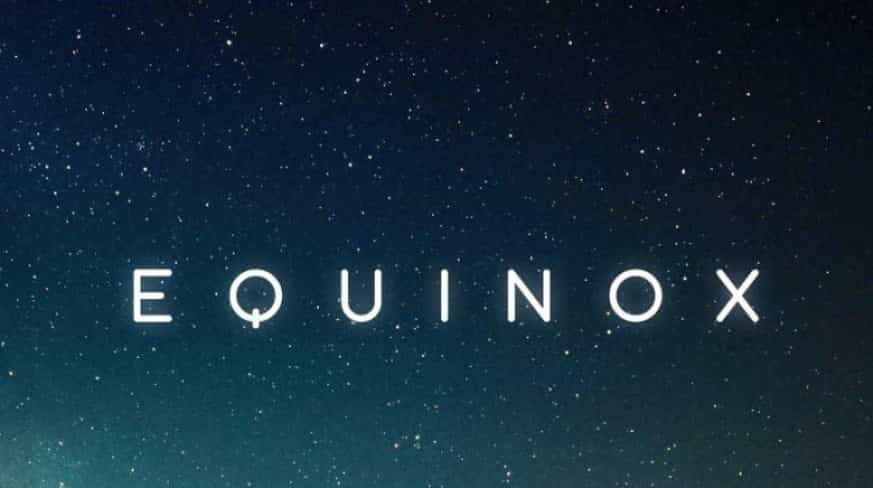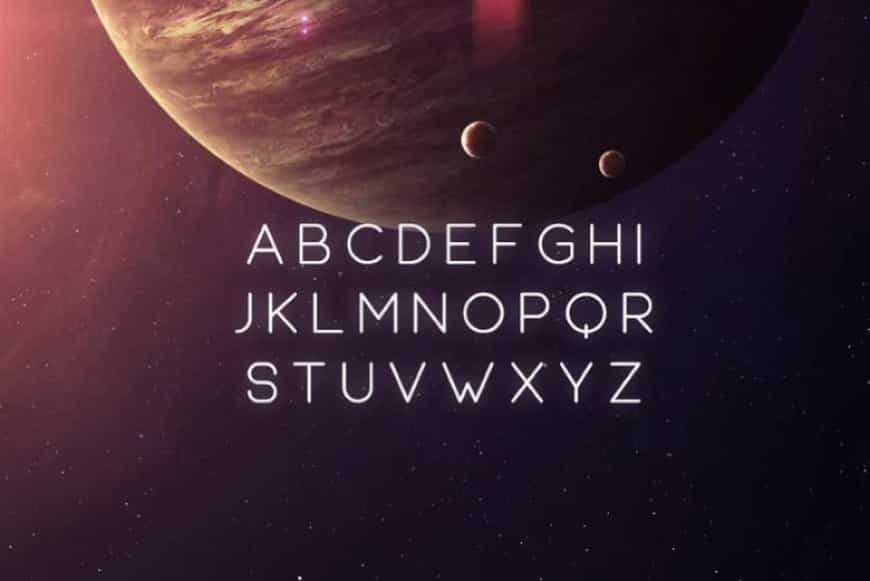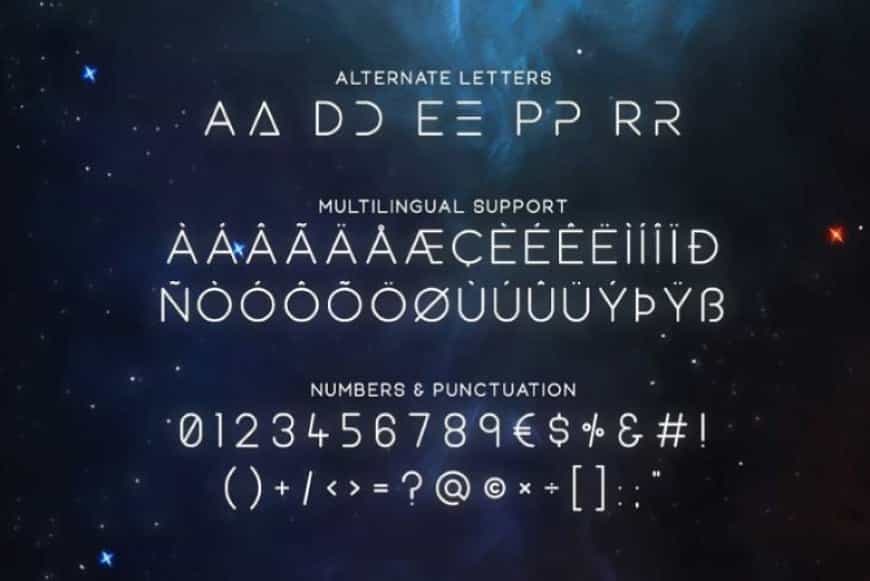
The Equinox font family is simple and minimalistic, it has uppercase multilingual punctuation, numbers and letters, as well as alternative letters. Of course, Equinox is not as space-agey as my other science fiction fonts, but that is a good thing since, due to its many variations, it is versatile enough for other styles of design.